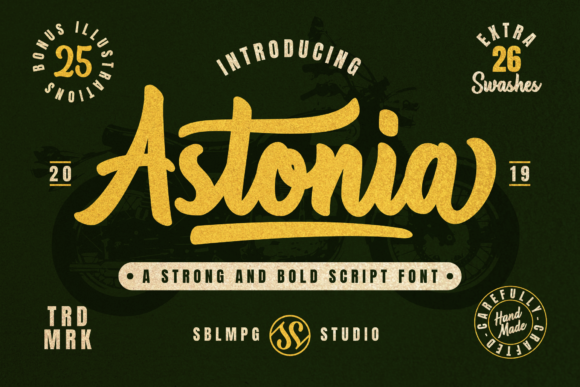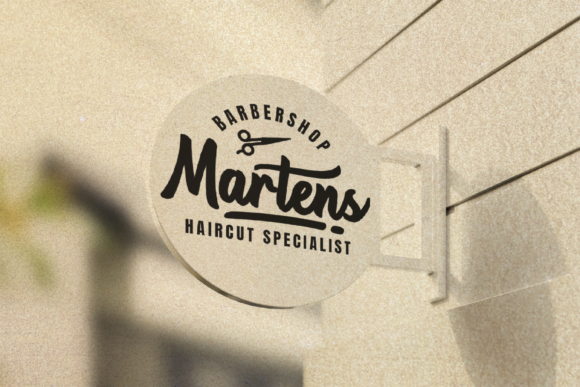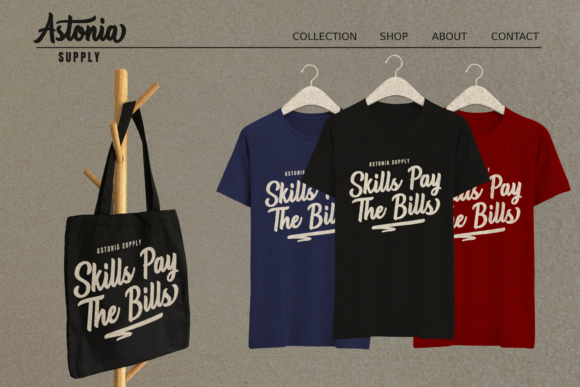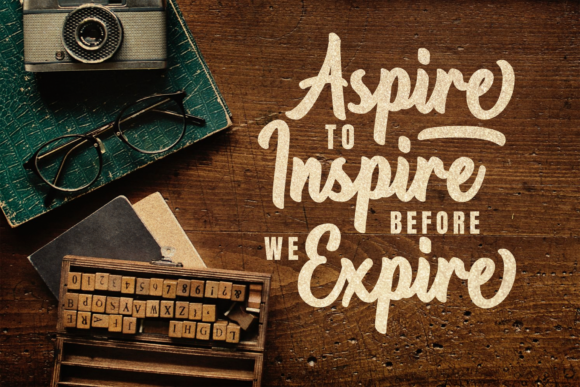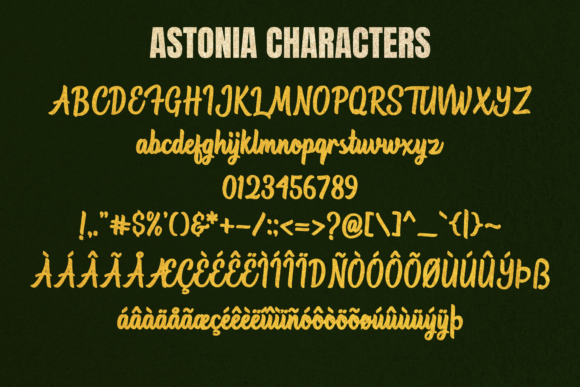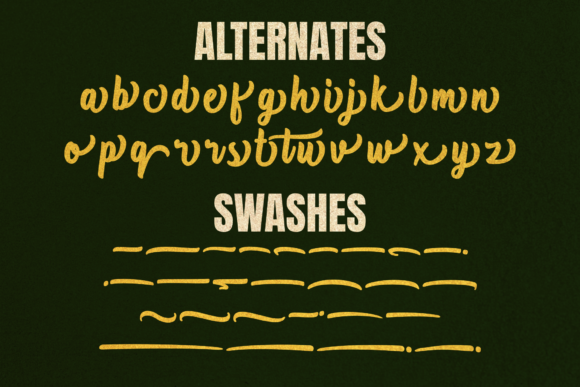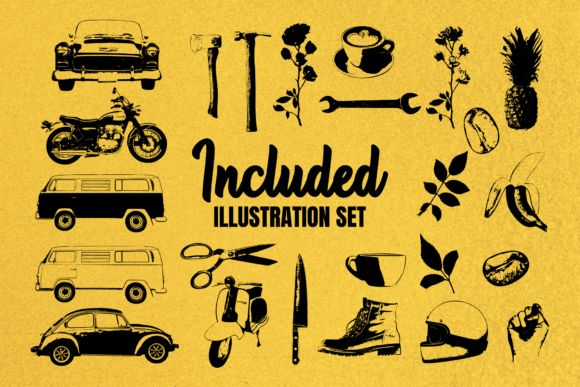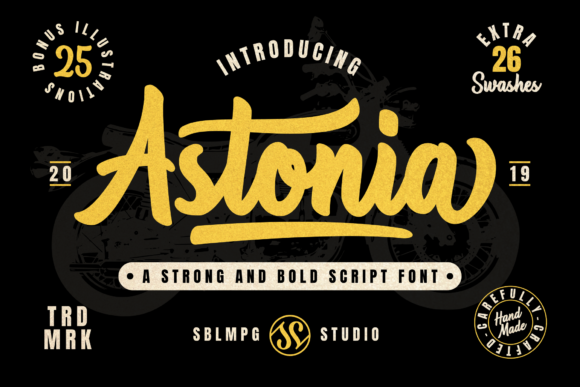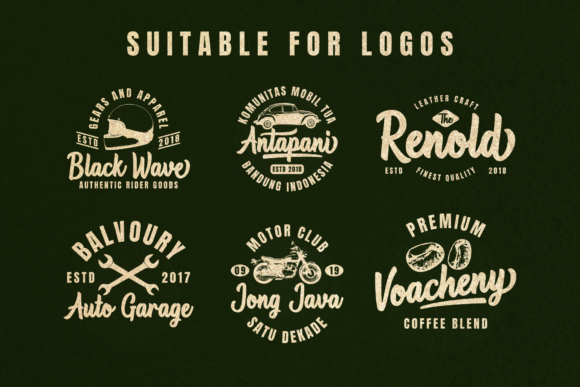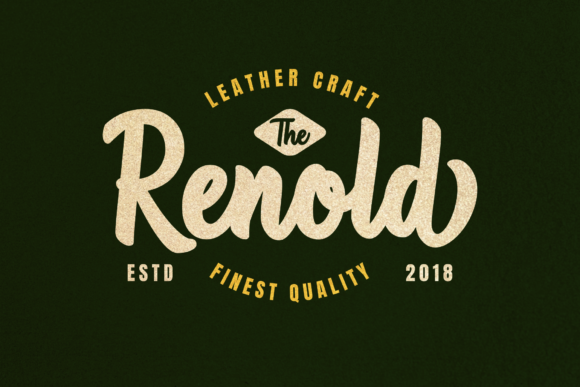
Astonia Font
About Astonia Font
The Astonia is a strong and bold script font. It’s curved and rounded in every single touch, and has an unique vintage style that’s perfect for branding.